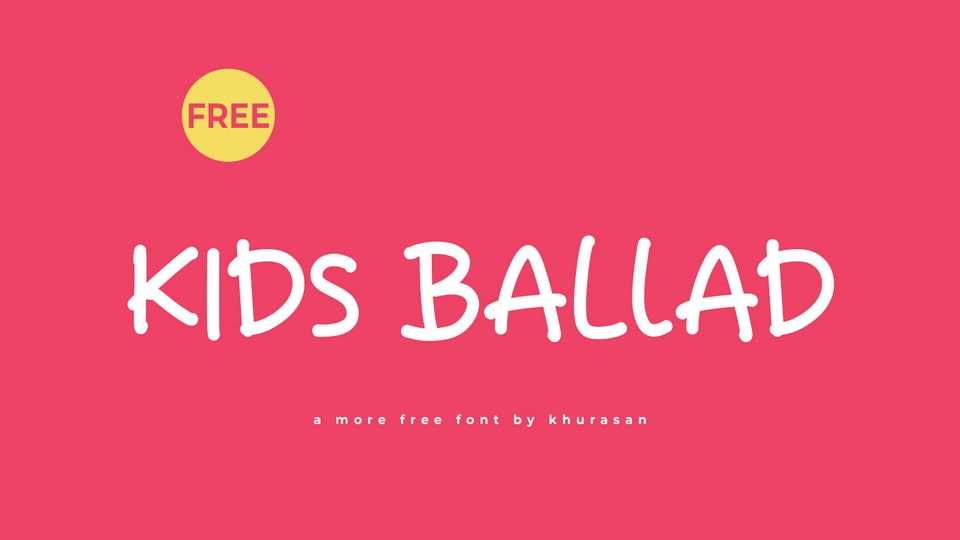
Download Kids Ballad font, a simple, natural, and playful handwritten typeface that brings a touch of whimsy to your designs. Kids Ballad font is the perfect choice for projects that seek a relaxed and inviting feel, from cheerful greeting cards to playful social media graphics.